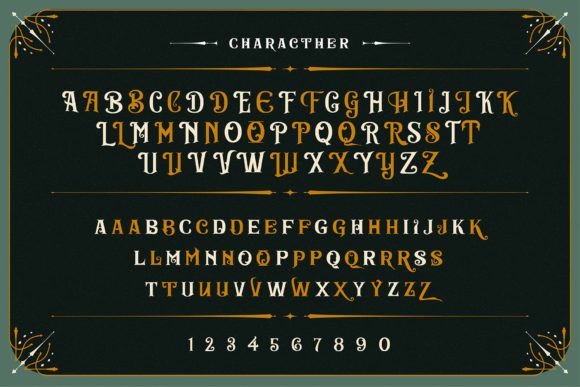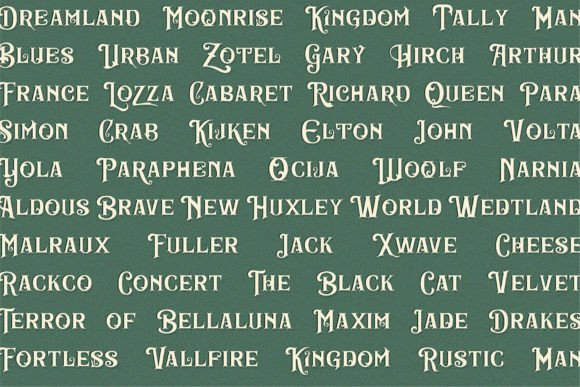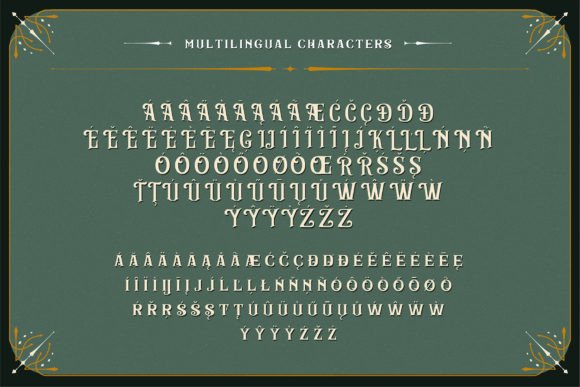
Burnic Font
Introducing a vintage classic display typeface called Burnic. Burnic Typeface is inspired by antique, mixed victorian, and art deco periods with decorative shapes.Those all will make you work easily to create: Posters, Logos, Print, Quotes, Headers, Clothing, Labels, Packaging, etc.